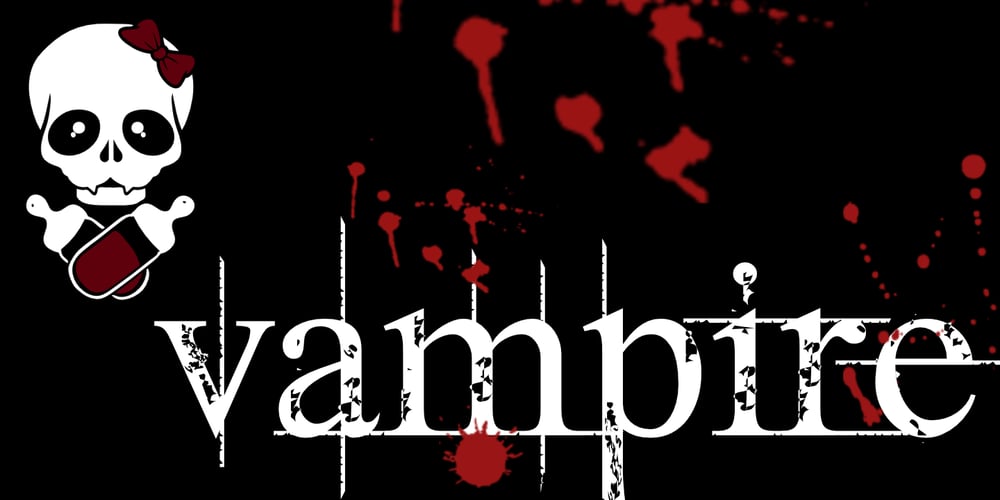
Vampire
Vampire font
Vampire Font Family was designed by published by Otto Maurer. Vampire contains 5 styles and family package options. Inspired by a famous vampire movie. This font is based on the character shapes of Free Serif, a sample font bundled with FontLab applications; it is quite similar to Times Roman.